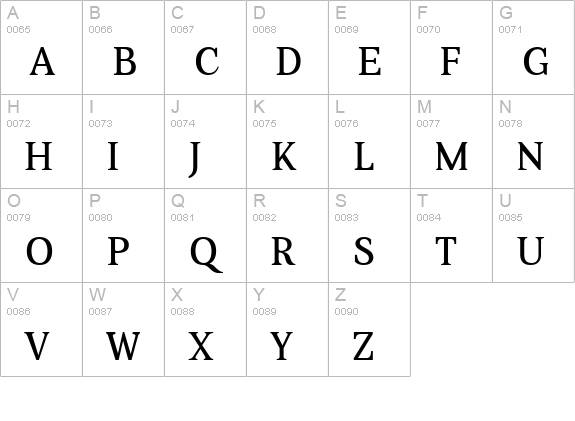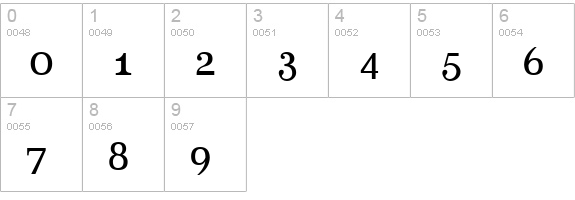
Aver Font Details
Introducing Aver, a stunningly versatile font that combines elegance with modernity. Designed to make a lasting impression, Aver is the perfect choice for any creative project, from branding to editorial design and everything in between. With its clean lines and balanced proportions, Aver exudes a timeless sophistication that will elevate any design. Whether you're crafting a logo, designing a website, or creating a captivating poster, Aver's versatility ensures that your message stands out with clarity and style. But what truly sets Aver apart is its accessibility. This remarkable font is available to download for free at FontsMarket.com, allowing designers of all levels to access its remarkable potential without breaking the bank. Embracing the spirit of collaboration and creativity, Aver invites you to unleash your imagination and bring your ideas to life. Featuring a comprehensive range of characters, Aver provides support for multiple languages, ensuring that your message can reach a global audience. Its extensive ligature and stylistic alternates options offer endless possibilities for customization, allowing you to create a truly unique and personalized design. Immerse yourself in the world of Aver and experience the freedom to create remarkable designs without limitations. Download this exceptional font for free at FontsMarket.com and let your creativity soar to new heights. Aver is not just a font; it's a powerful tool that empowers designers to make a lasting impact.